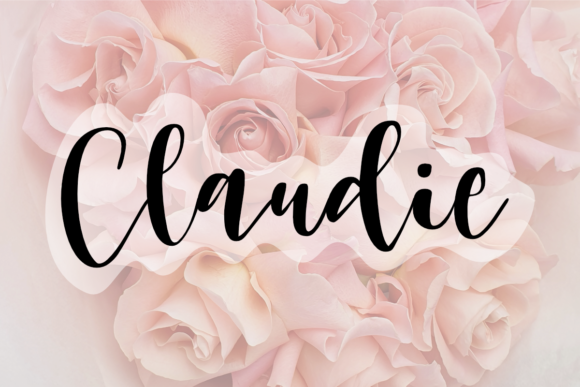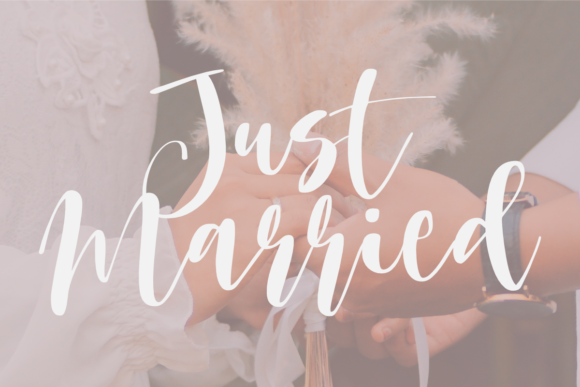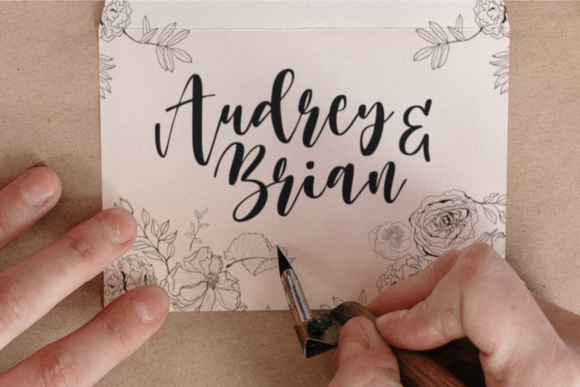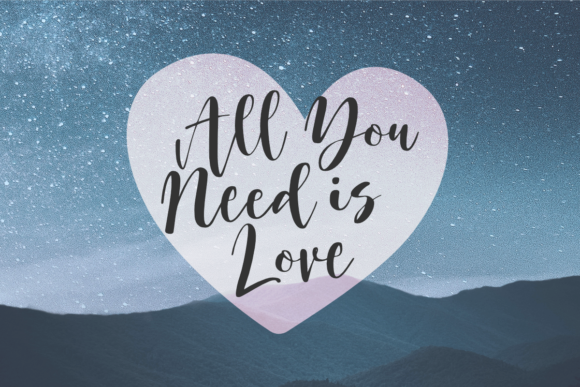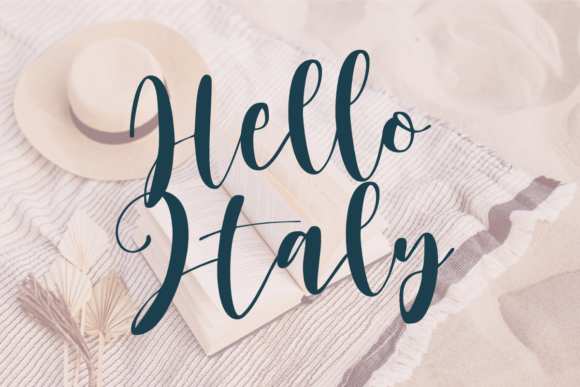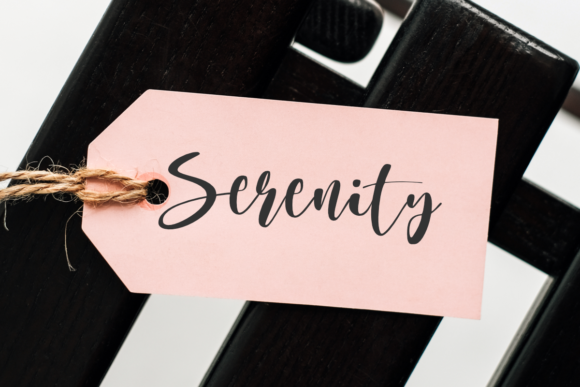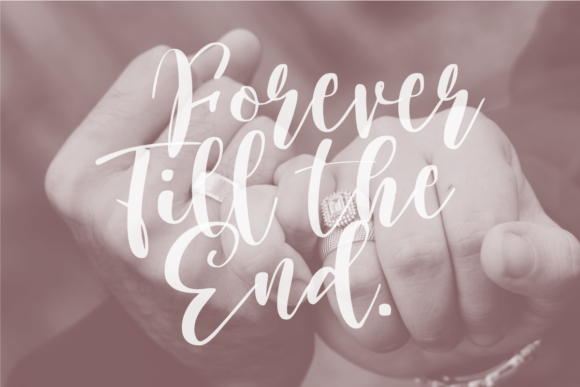
The Perfect Script for a Love Story
Have you ever stared at a blank page, waiting for inspiration to strike? The cursor blinks, and your mind is a blank slate. Suddenly, a spark of creativity hits, and you envision the perfect script for a love story. For designers, this moment is a chance to bring a concept to life, and Claudie Font is the perfect partner in crime.
Claudie Font is a charming, handwritten font that exudes an authentic and romantic feel. Designed to capture the essence of love, it’s perfect for wedding invitations, logotype, and product branding. Whether you’re a seasoned designer or just starting out, Claudie Font is a valuable addition to your toolkit, offering a unique touch to your designs.
Claudie Font Key Features
- Unique Characteristics: Claudie Font features a unique blend of elegant and playful elements, making it suitable for various design projects.
- Script and Language Support: The font supports a wide range of languages, including Latin, Greek, and Cyrillic scripts.
- Font Style: Claudie Font is available in regular, italic, and bold styles, providing versatility for designers.
Claudie Font Review
Overall, I’m quite impressed with the Claudie Font. It has a unique and elegant touch that can elevate any design. ✨ The rounded edges and subtle curves make it perfect for creating a sophisticated and modern look.
Here are some of the things that work well with Claudie Font:
- ✨ Versatility: It works well in various contexts, from headings to body text.
- ✨ Legibility: The font is easy to read, even at smaller sizes.
- ✨ Distinctiveness: It has a distinct personality that can add character to your design.
However, there are a few limitations:
- ⚠️ Limited weight options: The font only comes in a few weights, which might limit its use in certain situations.
- ⚠️ Not ideal for bold text: While the font is great for headings, it’s not the best choice for bold, attention-grabbing text.
Overall, I’d say Claudie Font is a solid choice for designers who want a unique and elegant font. While it has its limitations, it’s definitely worth considering for your next project.
Getting the Most Out of Claudie Font
Here are some tips to get the most out of Claudie Font:
– Use it for titles and headings to add a touch of elegance.
– Pair it with other fonts to create a unique and stylish look.
– Experiment with different font sizes and colors to enhance the visual impact.
Claudie Font is perfect for:
– Fashion and beauty branding.
– Luxury product design.
– High-end marketing materials.
Alternatives to Claudie Font for Designers
Ostrich Sans is a modern sans-serif font that is highly legible and versatile. It’s suitable for a wide range of applications, including branding, signage, and digital products. Compared to Claudie Font, Ostrich Sans has a more geometric and streamlined look, making it ideal for modern designs.
Playfair Display is an elegant and luxurious serif font that is perfect for high-end designs. It’s often used for titles, headings, and other display text where a touch of sophistication is required. While Claudie Font has a more minimalist look, Playfair Display has a more ornate and refined feel.
Montserrat is a geometric sans-serif font that is highly legible and adaptable. It’s suitable for a wide range of applications, including branding, signage, and digital products. Compared to Claudie Font, Montserrat has a more modern and urban look, making it ideal for designs that require a sense of energy and dynamism.
Lato is a clean and modern sans-serif font that is highly legible and versatile. It’s suitable for a wide range of applications, including branding, signage, and digital products. While Claudie Font has a more minimalist look, Lato has a more open and airy feel, making it ideal for designs that require a sense of simplicity and elegance.